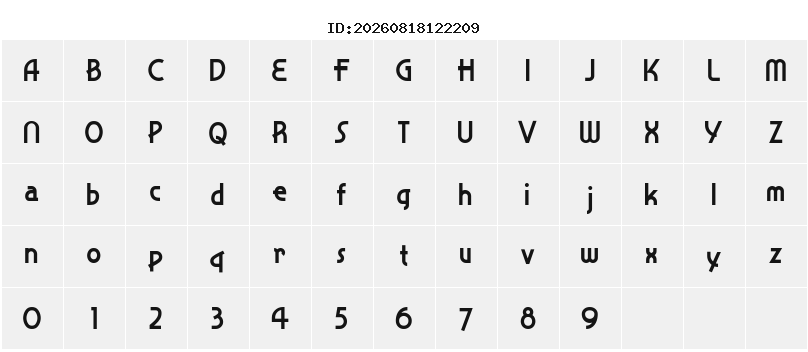
SnappyService Preview
• Font Name: SnappyService
• Full Font Name: SnappyService
About SnappyService.ttf
SnappyService.ttf is a modern, elegant sans-serif font designed for ultimate readability and visual harmony. Perfect for branding, headlines, web design, and print materials.